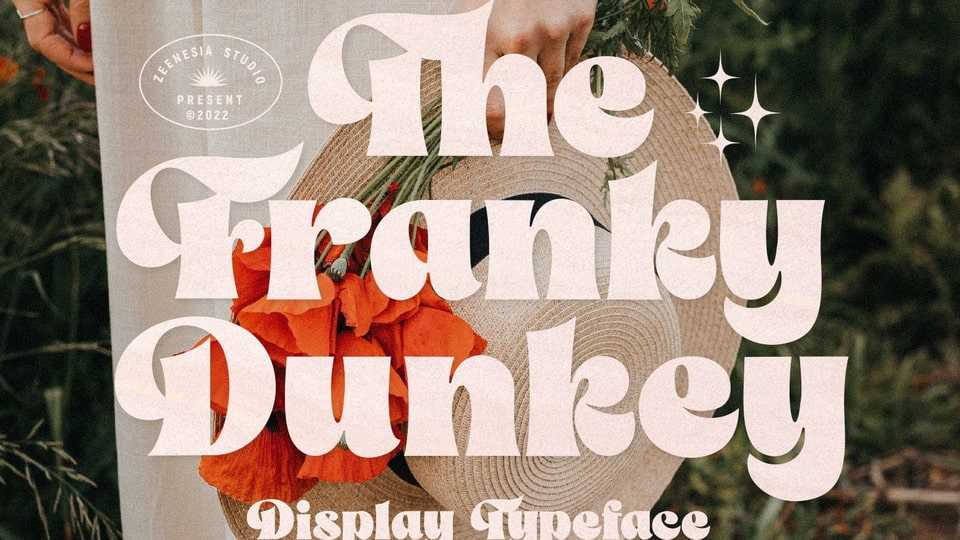
Download The Franky Dunkey font, a bold style serif typeface with strong character and soft features. The Franky Dunkey is a very versatile font that works great in large.
Designer: Zeenesia Studio